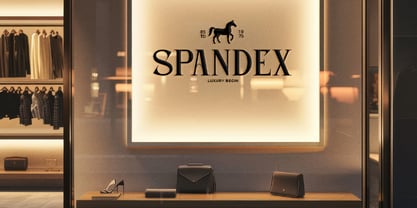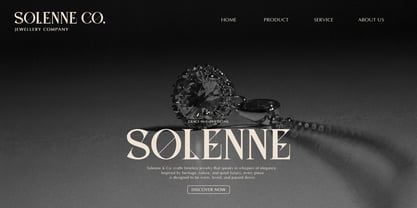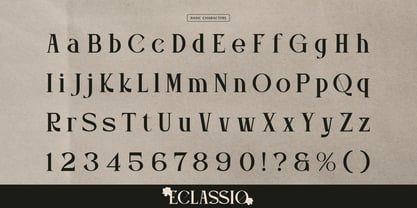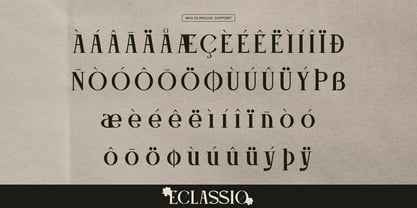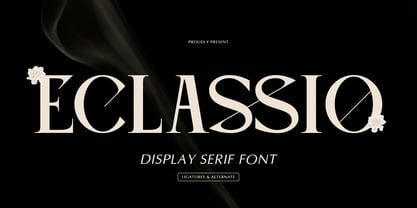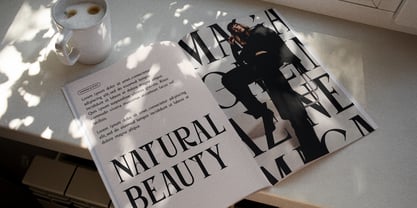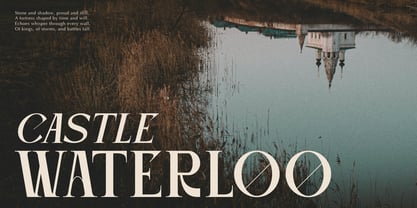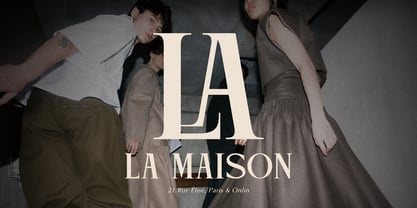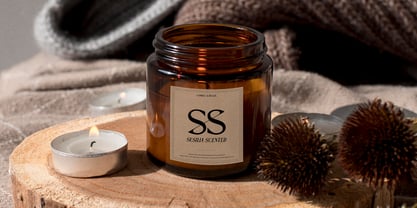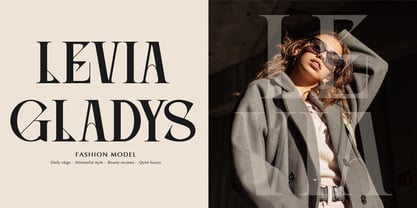
Eclassio
by Tini Fitriani
The Eclassio Font Family was designed by and published by Tini Fitriani. Eclassio contains 2 styles and family package options. More about this family
Eclassio | Display Serif Font, from Gracetypestudio, suitable for any projects such as: logos, branding projects, homeware designs, product packaging, mugs, quotes, posters, shopping bags, t-shirts, book covers, name card, invitation cards, greeting cards, label, photography, watermark, special events, and all your other lovely projects that need a Display Serif Font taste.
• Alternate and Ligature
• Fonts include multilingual support